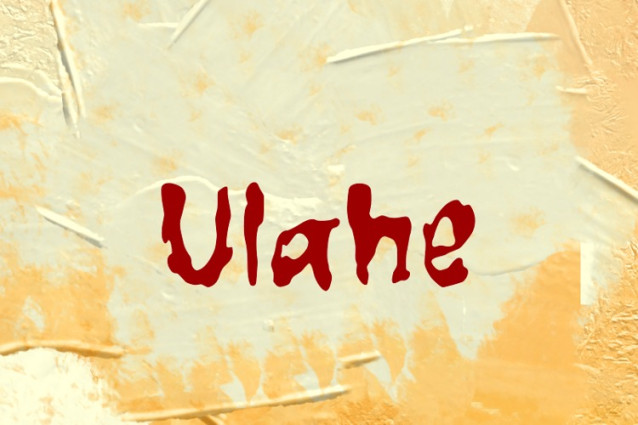
Ulahe Font
Ulahe Font is a chunky, comic, and cartoon display font. With its neat and joyful personality, this font will enhance any project you wish to create!